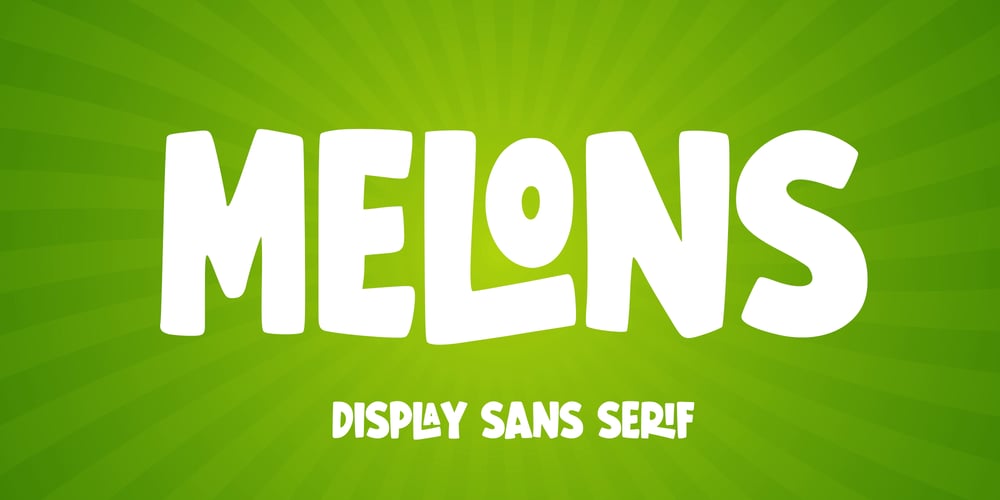
Melons Font Family was designed by Abo Daniel and published by Abo Daniel. Melons contains 1 styles and family package options. introducingMELONS- display sans serif -MELONS is a cute and playful sans-serif font.It is great for t-shirt designs, books, magazines, branding, packaging, logos, quotes, mugs, tote bag designs, cards, banners, social media, and anything about your projects.The ligatures make it look so awesome.Features: All Uppercase Characters Numeral Multilingual Support Punctuation Ligatures PUA encoded I hope you love it.regards,Abo Daniel Studio